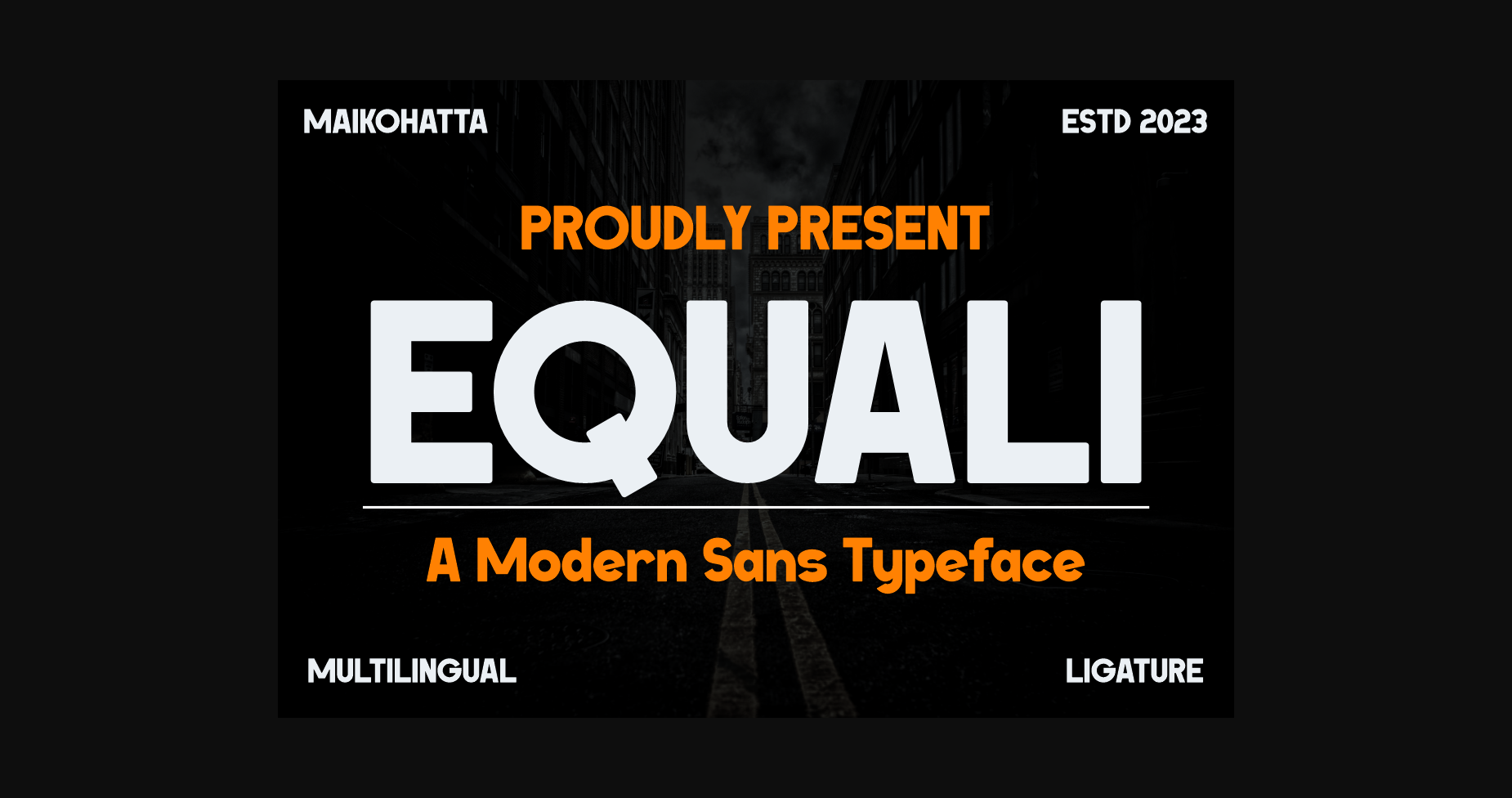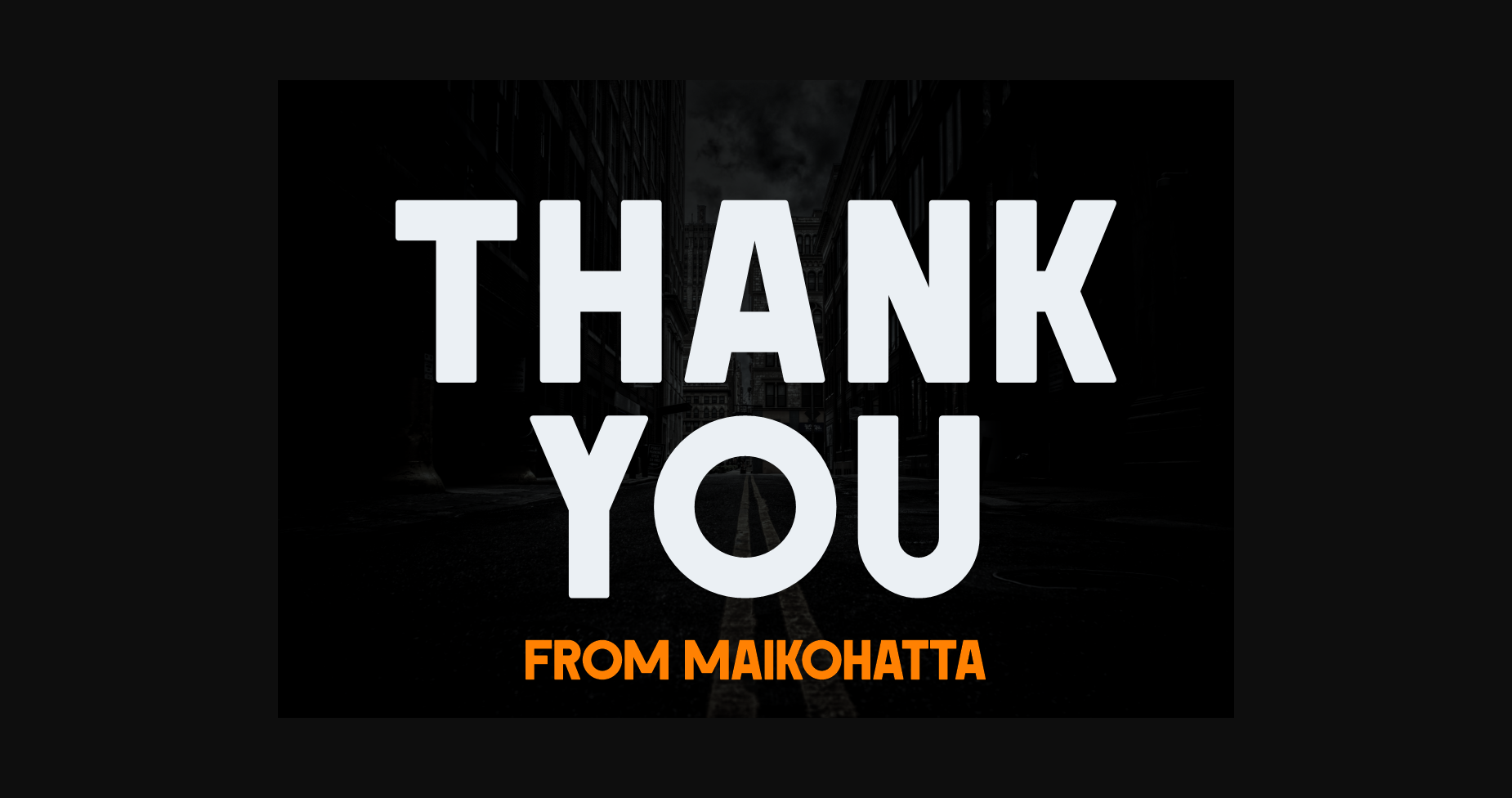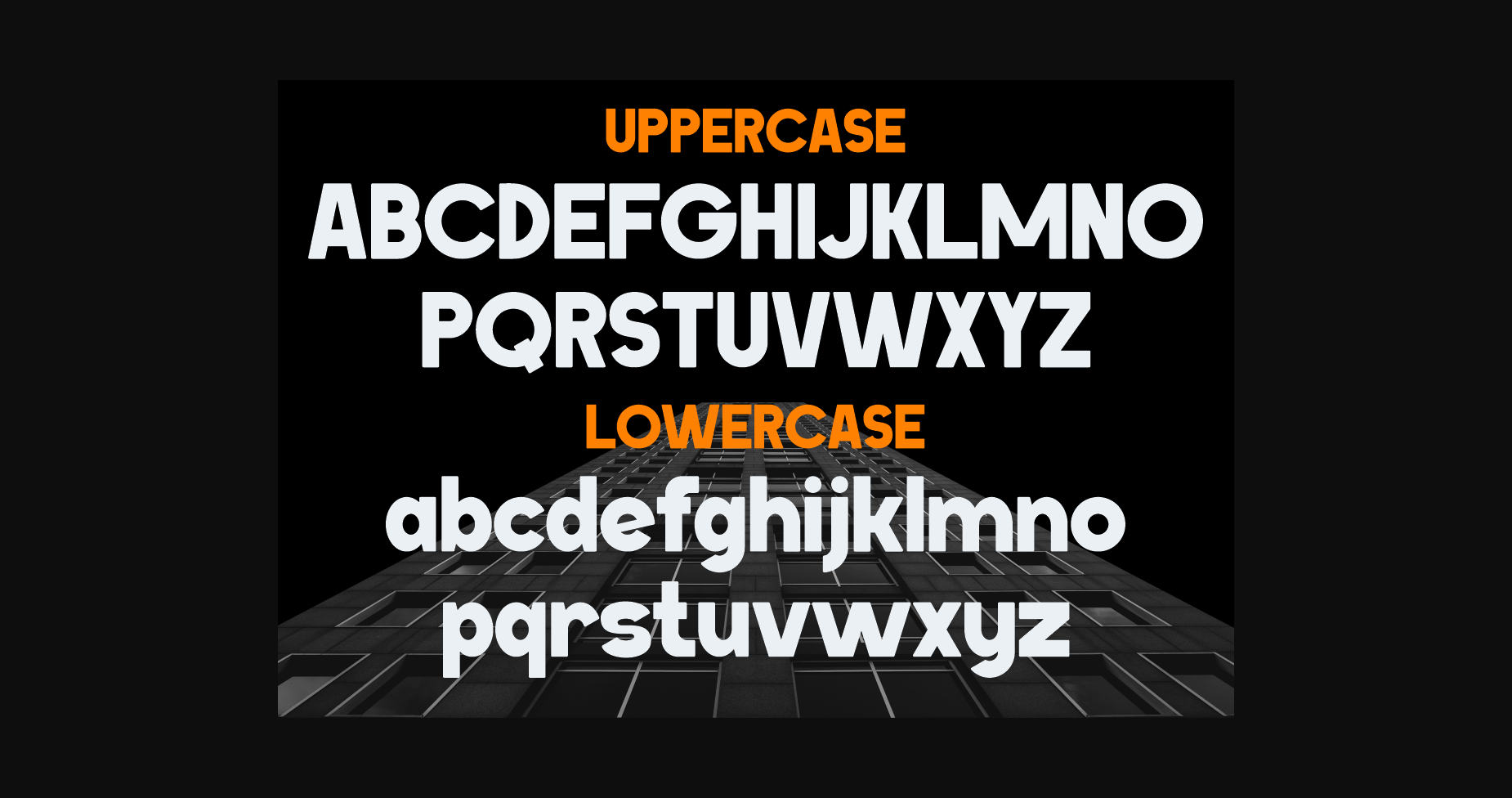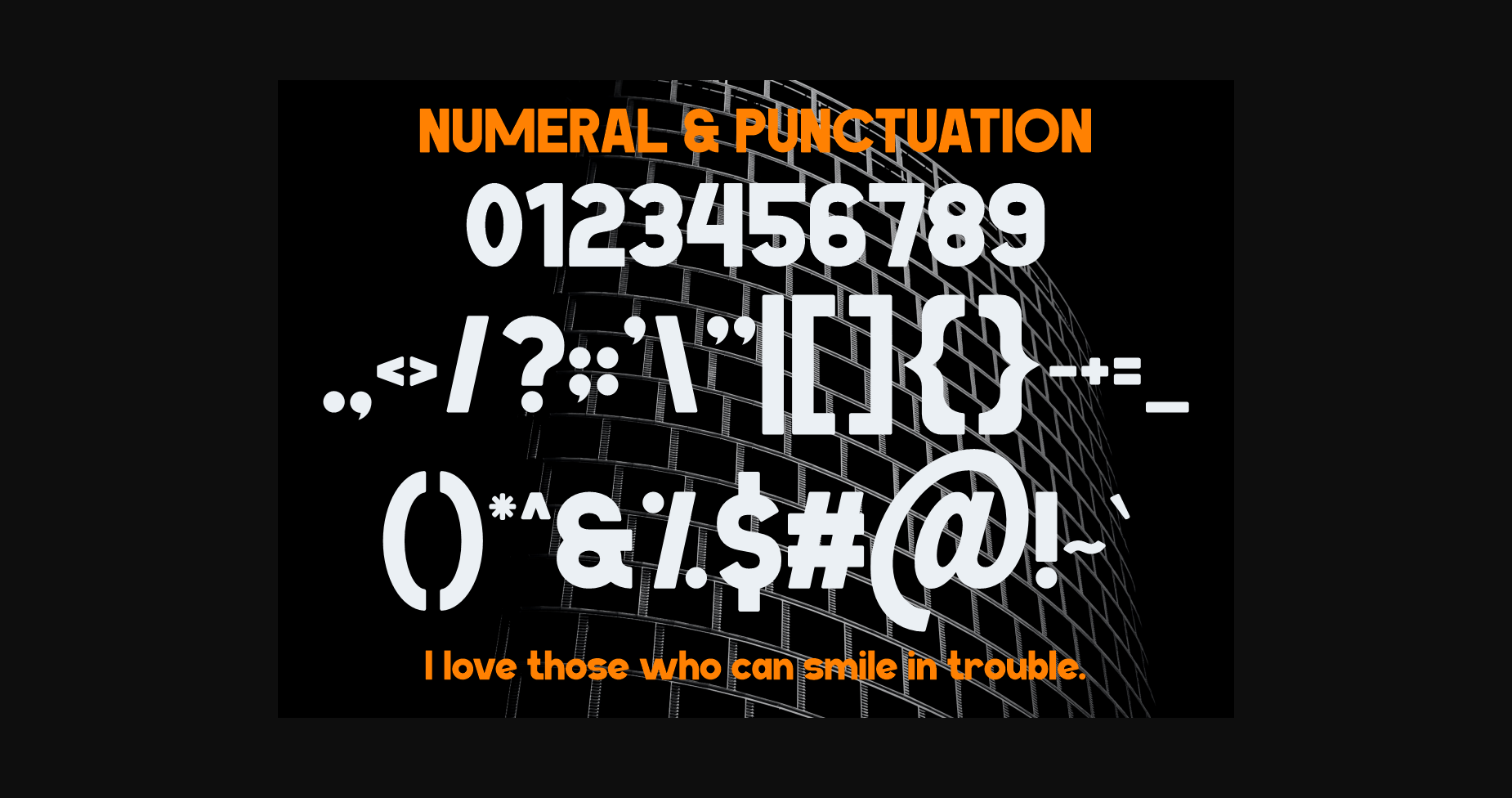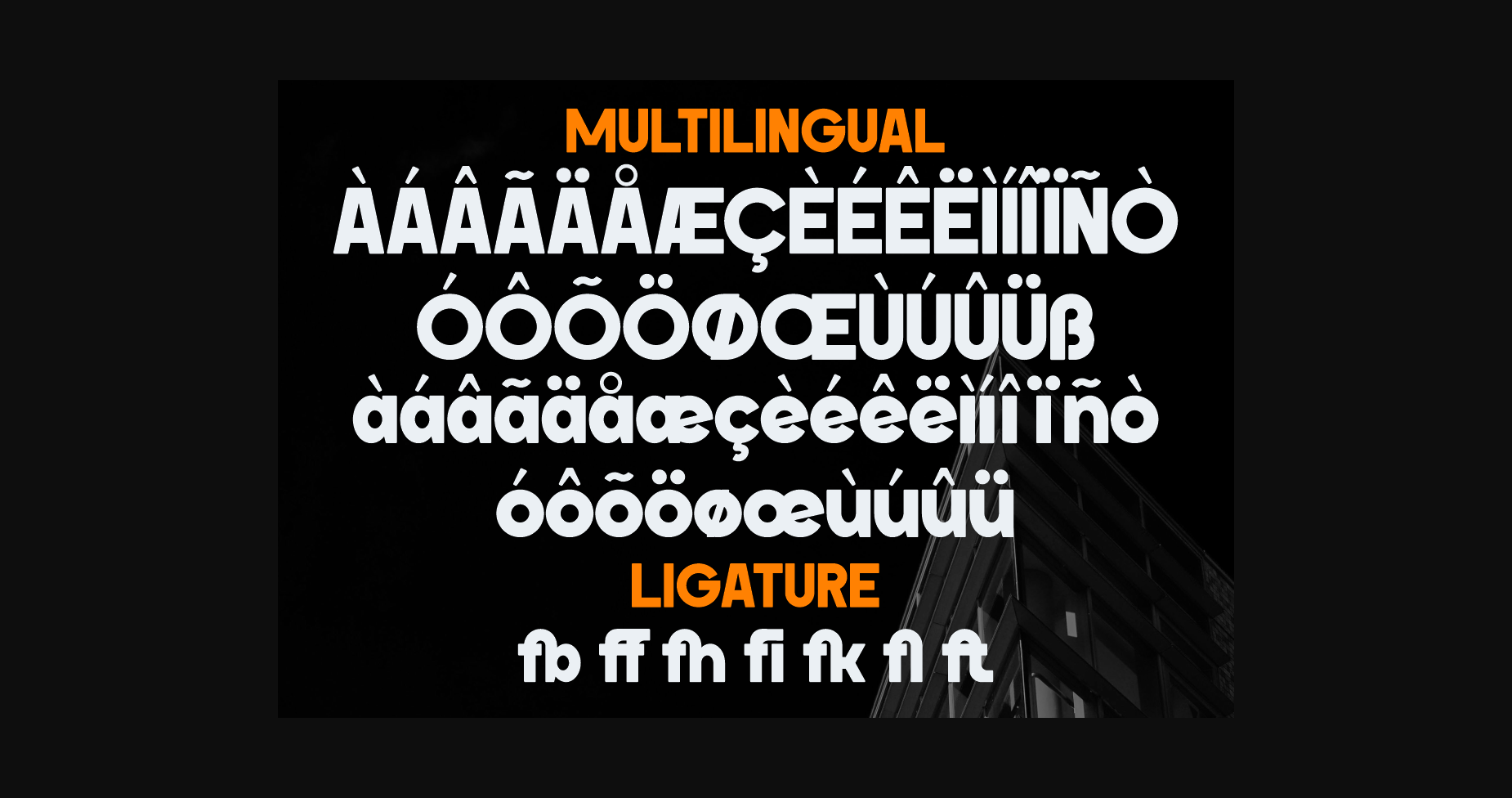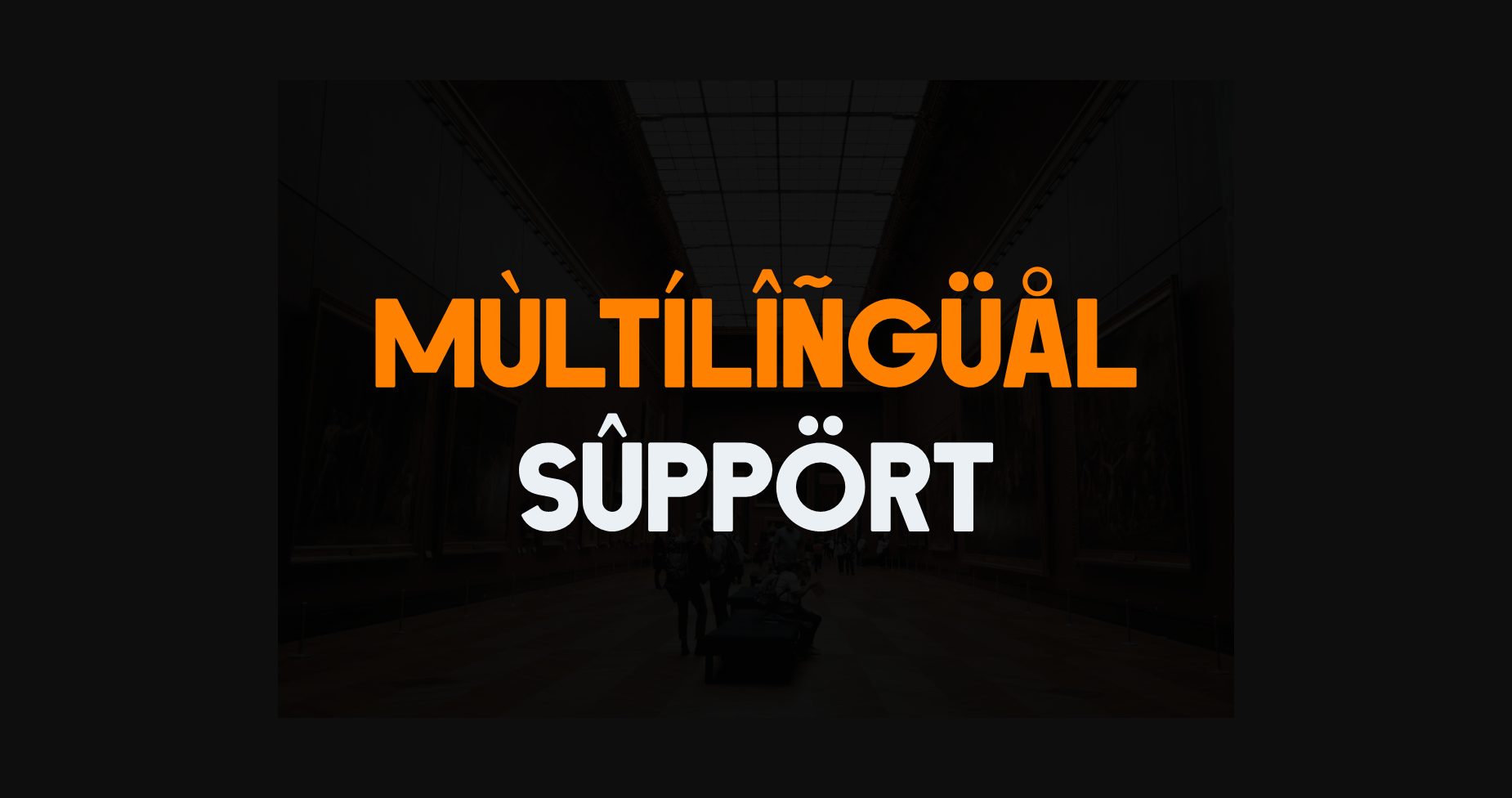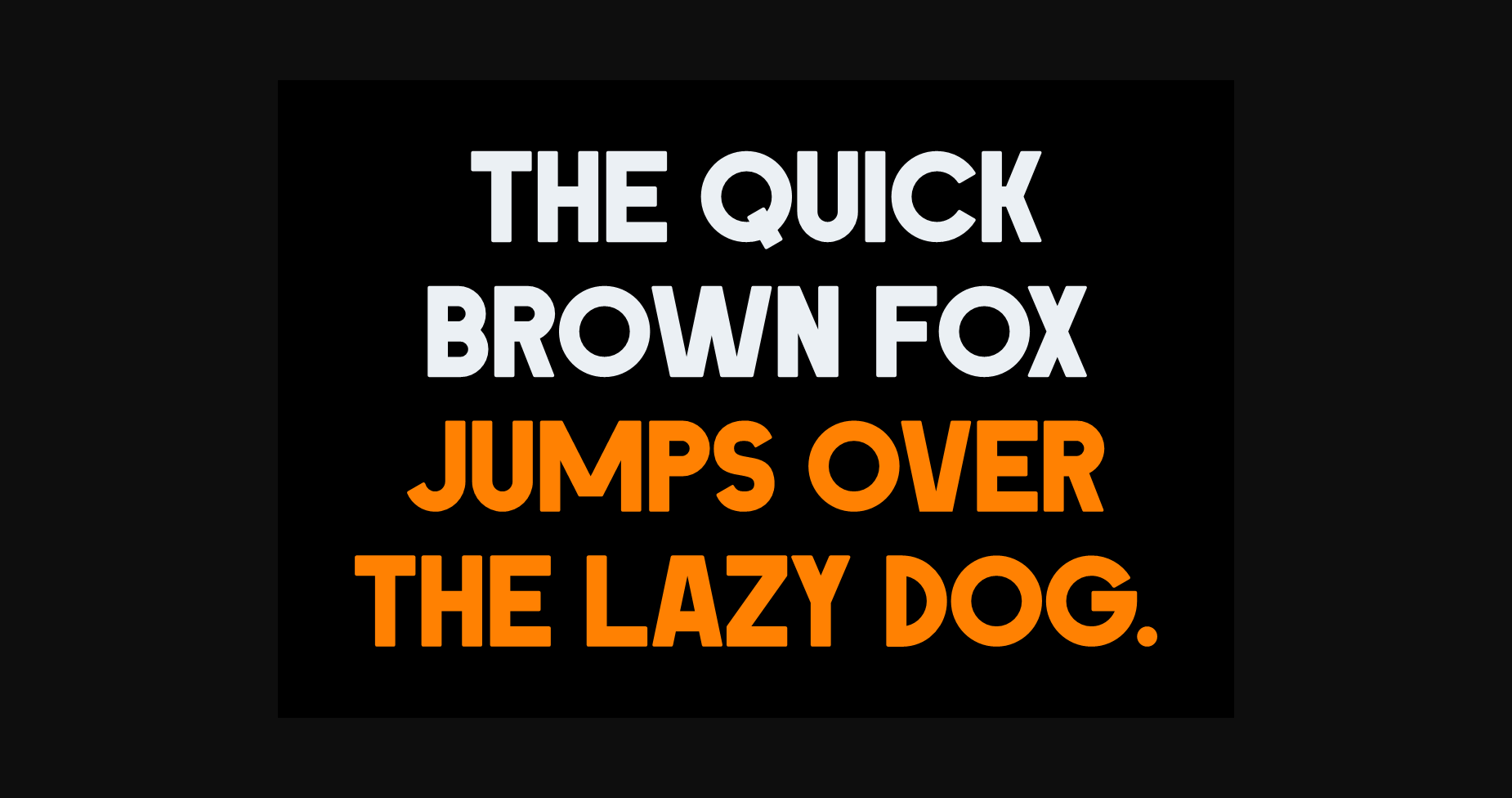
HomeSans Serif FontsEquali Font Sans Serif Fonts Equali Font FacebookXPinterestWhatsApp 1 of 10 ... Equali Font Poster 2... Equali Font Poster 3... Equali Font Poster 4... Equali Font Poster 5... Equali Font Poster 6... Equali Font Poster 7... Equali Font Poster 8... Equali Font Poster 9... Equali Font Poster 10... About Equali Font Equali is perfect for making a strong statement in headlines, logos, and graphic designs. Equali is a versatile font that adds a touch of modernity and professionalism to any project. DOWNLOAD NOW People also explored Ariana Script Font Summer Time Font Scarlet Whaleys Font Brushello Font Millie Fascal Font Asyila Endah Font Bluesticks Font Orange Juice Font 346 0 TagsEqualiEquali Font Previous articleHordei FontNext articleBorela Font LEAVE A REPLY Cancel reply Comment: Please enter your comment! Name:* Please enter your name here Email:* You have entered an incorrect email address! Please enter your email address here Website: Save my name, email, and website in this browser for the next time I comment. Personal Use Free Bollado Personal Use Free Read more about this font Metal Lord Personal Use Free Read more about this font Little Pigeon Personal Use Free Read more about this font Alinda Personal Use Free Read more about this font BLOG 5 Fonts That Will Dominate Design Trends in 2026 5 Fonts for 2026 That Will Dominate Design Trends Typography plays a critical role in visual communication, and as we look ahead to 2026, it’s... Free vs Paid Fonts: Why Investing in Premium Fonts Is Worth It Using Fonts in Digital Marketing: Tips to Strengthen Your Brand Identity Free Fonts Risk: Why Free Fonts Can Be Dangerous for Designers